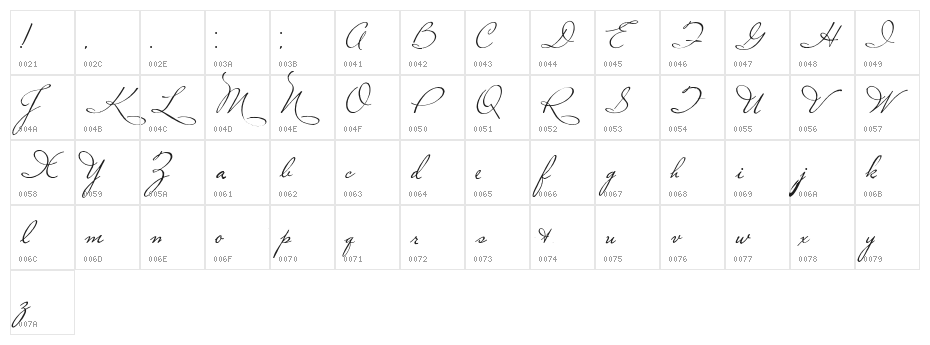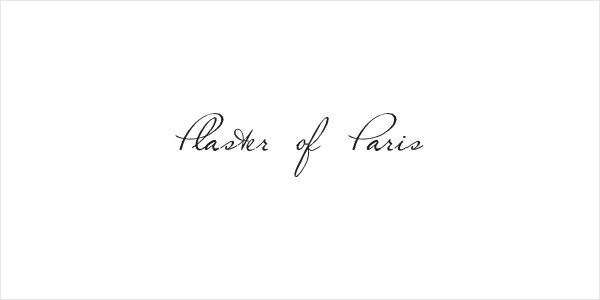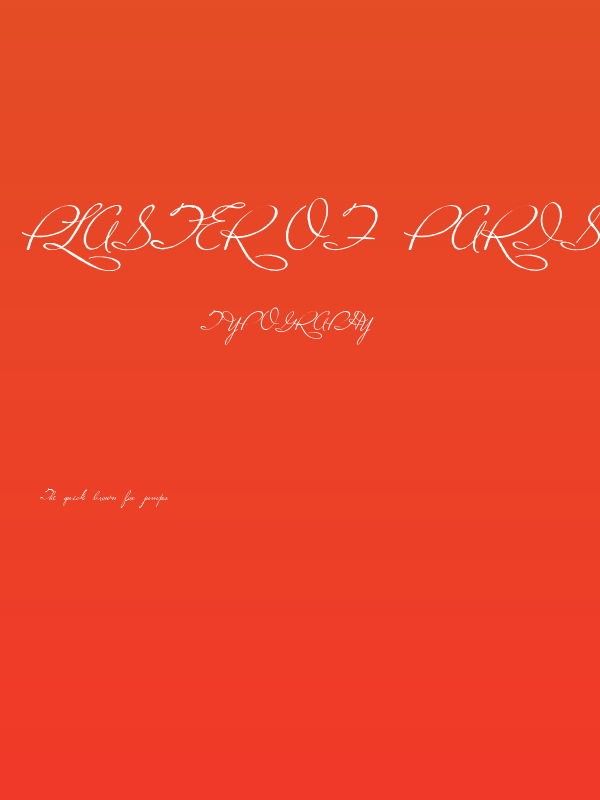
Plaster of Paris Font
Plaster of Paris Description
This elegant script font features flowing, interconnected letters with a classic calligraphic style. The uppercase letters are ornate, with intricate loops and flourishes that give a sense of sophistication and grace. The lowercase letters maintain a consistent slant and are designed with smooth, continuous strokes, enhancing the fluidity of the text. The font's overall appearance is both refined and artistic, making it suitable for formal invitations, branding, and decorative purposes. The characters are well-spaced, allowing for readability while maintaining the aesthetic appeal of handwritten text.
| Proposed Projects | Ideal for wedding invitations, elegant branding, personal stationery, and decorative signage. |